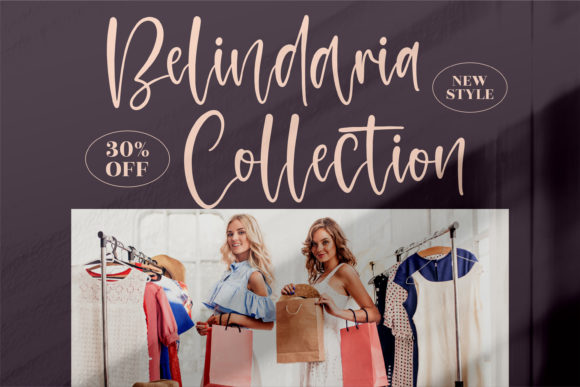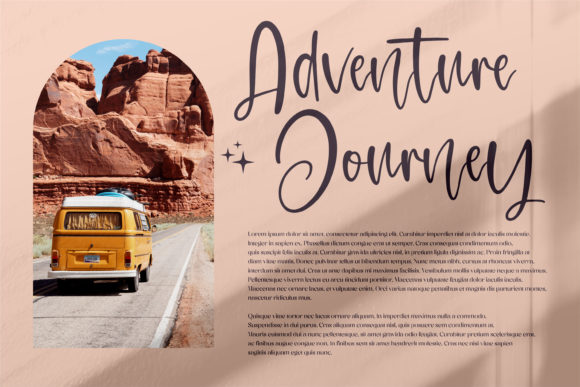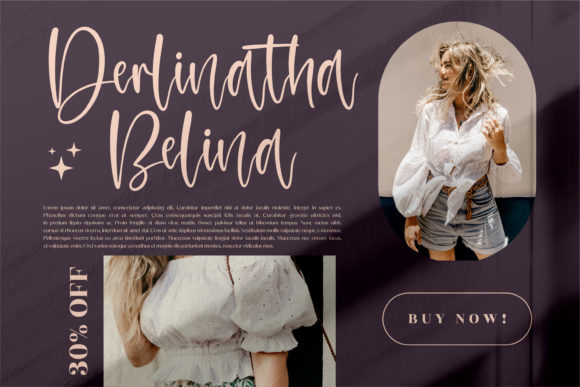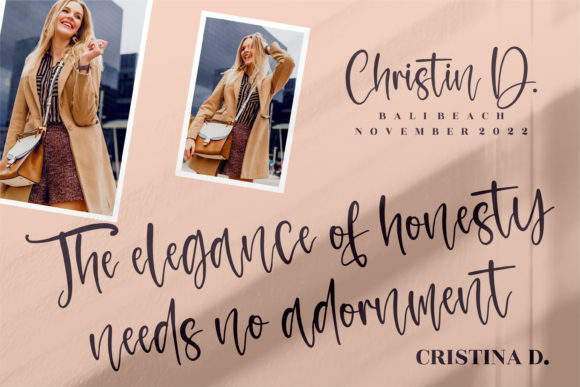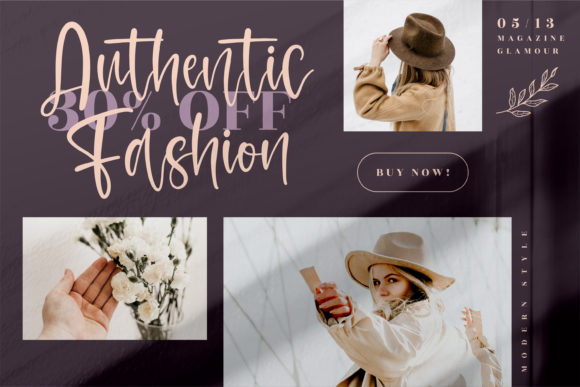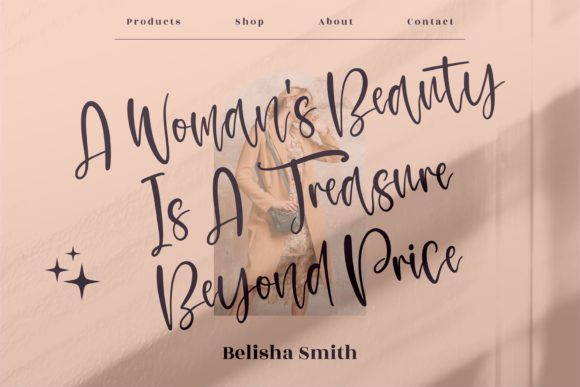
Introduction to Momshine Font
Have you ever stumbled upon a font that perfectly captures the essence of your creative vision? For me, that moment came when I discovered the Momshine Font. As I browsed through a design resource website, I was immediately drawn to its elegant script and delicate touch. The font’s simplicity and sophistication instantly sparked an idea for a creative project I had been putting off.
The Momshine Font is more than just a pretty face – it’s a valuable asset for designers looking to elevate their designs. Its lovely and delicate script exudes class and sophistication, making it perfect for a wide range of creative projects. Whether you’re working on a personal or commercial project, the Momshine Font is sure to provide a beautiful and refreshing look.
Key Features of Momshine Font
- High-quality design resource for creative projects, perfect for graphic designers and artists.
- Unique, modern font with a transparent background, allowing for seamless blending with any design element.
- Designed with a playful, cursive style, making it ideal for adding a touch of whimsy to your creative project.
- Easy to customize and edit, with a wide range of font sizes and styles to choose from, allowing for maximum flexibility in your design.
Honest Review: Momshine Font
As a designer, I’m always on the lookout for high-quality design resources to elevate my creative projects. The Momshine Font is a recent addition to my design arsenal, and I’m excited to share my thoughts.
What works well for me is the Momshine Font’s versatility. It’s perfect for designing feminine and playful graphics, and the transparent background makes it easy to overlay onto any image or background. The font’s unique style and character make it stand out from more generic fonts, and it’s great for adding a touch of whimsy to any design project.
Here are some of the key features that I love about the Momshine Font:
- Transparent background for easy overlaying
- Feminine and playful style that’s perfect for feminine designs
One limitation of the Momshine Font is that it may not be suitable for more formal or professional designs. The font’s playful style may not be the best fit for serious or corporate projects.
Overall, I’m really impressed with the Momshine Font. It’s a great addition to any designer’s library, and I’m excited to see how it will elevate my future creative projects. ⚠️ Just keep in mind its limitations, and you’ll be all set to create some amazing designs with this font! ✨
Momshine Font
Tips for Getting the Most Out of Momshine Font
To get the most out of the Momshine Font, use it on high-quality designs with a transparent background. This will give your design a professional and polished look.
The Momshine Font is ideal for various creative projects, including:
- Birthday invitations and cards
- Wedding invitations and decorations